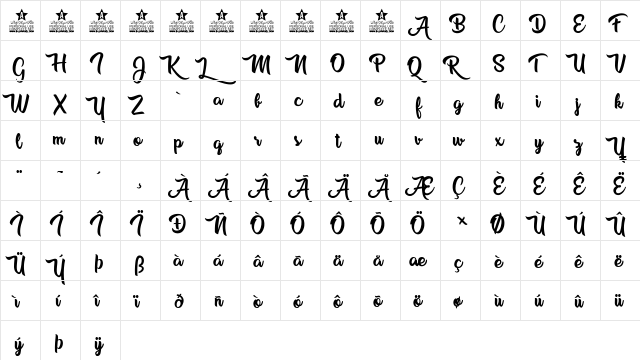
Vegan Yummy Personal Use Regular
| Foundry | Billy Argel |
| Designer | Billy Argel |
Design Context for Vegan Yummy Personal Use Typeface
Vegan Yummy Personal Use is a composed and adaptable typeface that performs quietly and consistently across a wide range of design contexts.